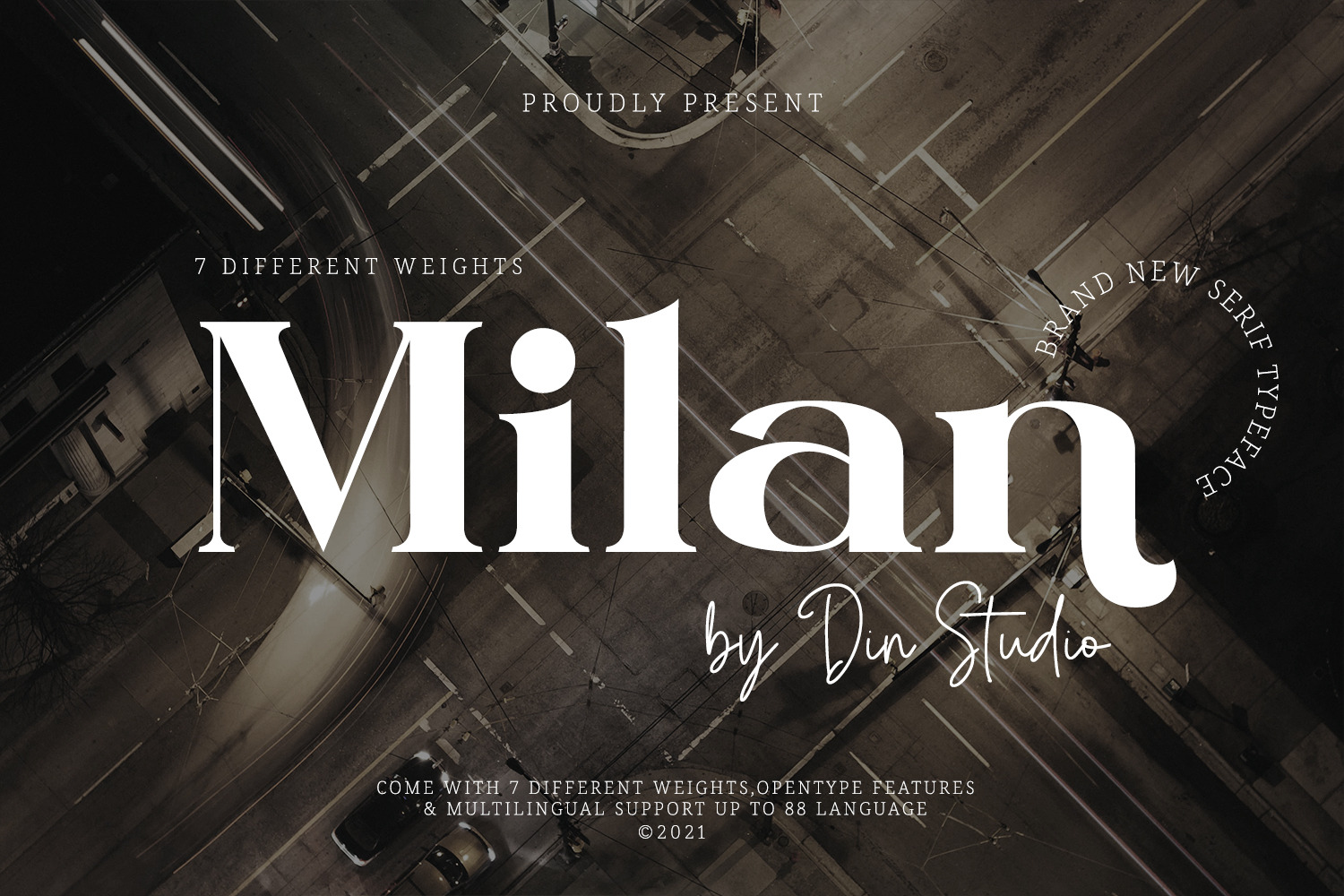
Milan-Serif Font Family
Hello, Everyone! Ready to spark your project? Want font to make your branding bold? Looking for a fabulous, stylish, modern, and adventure font? If you need to create a big, bold logo for your business, work on a poster for an event, or whatever your project may be-then this is the perfect font for you.
Milan-A Serif Font Family
Milan is a package that will makes you super happy. We offer you a very best choice to coloring your branding or project. With this family you will get many options of weight to maximize your designs with stylish fonts. Milan is made in uppercase and lowercase that easy on the eyes and nice to look while it’s also easy to read. This font family is an excellent choice to ensure a great font match for your designs and projects! Perfect to create amazing headings, logos, menus, social media graphics, and many more.
- Milan Thin
- Milan Light
- Milan Regular
- Milan Medium
- Milan Semi Bold
- Milan Bold
Milan fits for any design projects, such as posters, banners, logos, book covers, album covers, quotes, invitations, greeting cards, name cards, headings, printed products, merchandise, social media, etc. Find out more ways to use this font by taking a look at the font preview.